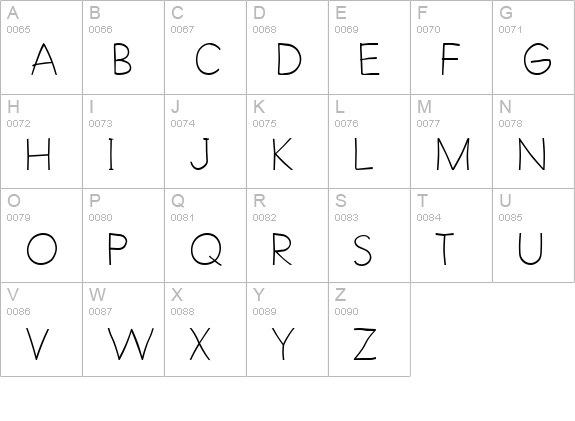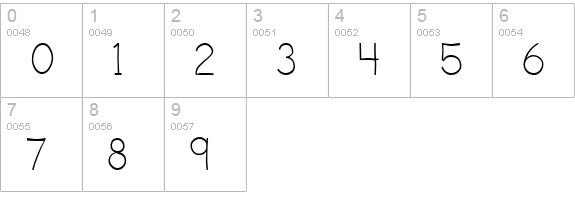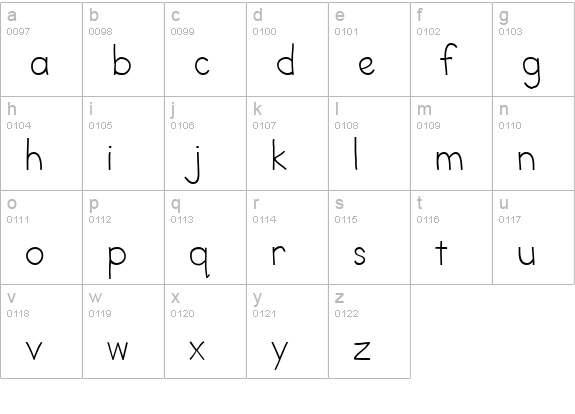
AbcTeacher Font Details
Introducing AbcTeacher font, a charming and versatile typeface perfect for educational materials, children's books, and playful designs. With its clean lines and friendly appearance, AbcTeacher is sure to captivate both young learners and the young at heart. This delightful font features a whimsical style that brings a sense of fun and creativity to any project. Best of all, AbcTeacher is available for free download at FontsMarket.com. Simply visit the website to access this delightful font and add a touch of whimsy to your designs. Whether you're creating classroom materials, crafting invitations, or designing a children's book, AbcTeacher is the perfect choice for adding a playful flair to your work. Download AbcTeacher today and let your creativity shine!